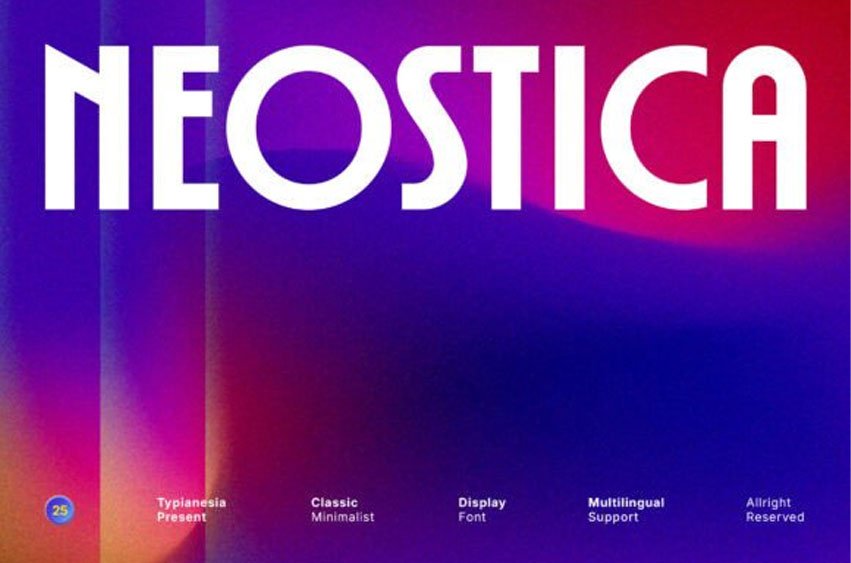
Neostica Font is a striking geometric display sans-serif font that embodies classic minimalism, delivering a bold, modern, and highly versatile aesthetic for high-impact visual communication.
This exceptional display typeface features confident, large, and rounded letterforms with a strong, unwavering weight that demands immediate attention. The clean lines and strong presence of the Neostica font make it the ideal choice for contemporary branding, powerful advertising headlines, high-end tech interfaces, and any project that requires a minimalist yet dominant voice.
The large scale and clarity of the Neostica typeface ensure excellent legibility against dynamic backgrounds and is well-suited for both print and digital use, supported by extensive multilingual options. Use this modern font to give your project an immediate sense of confidence, sophistication, and enduring style.